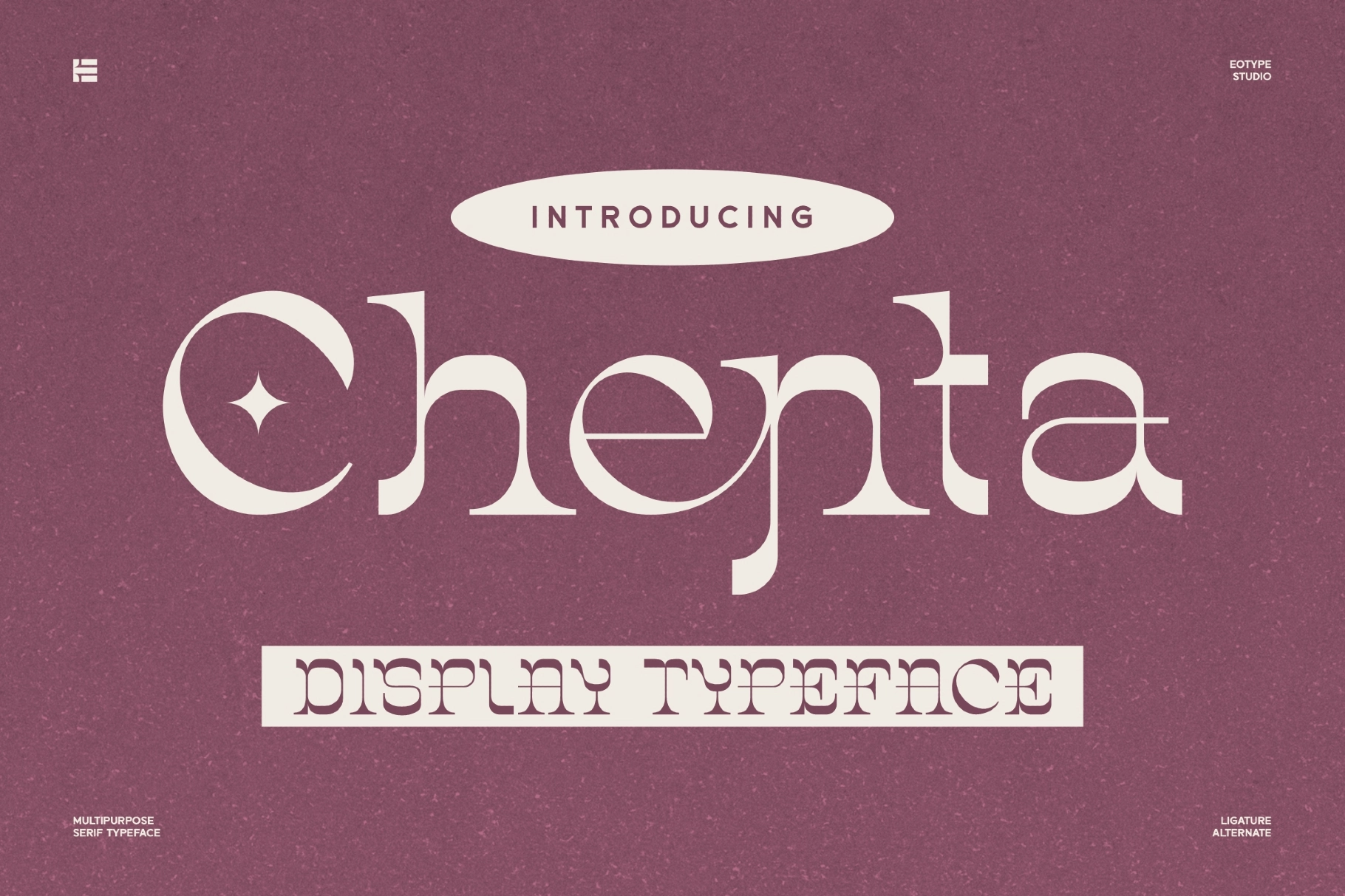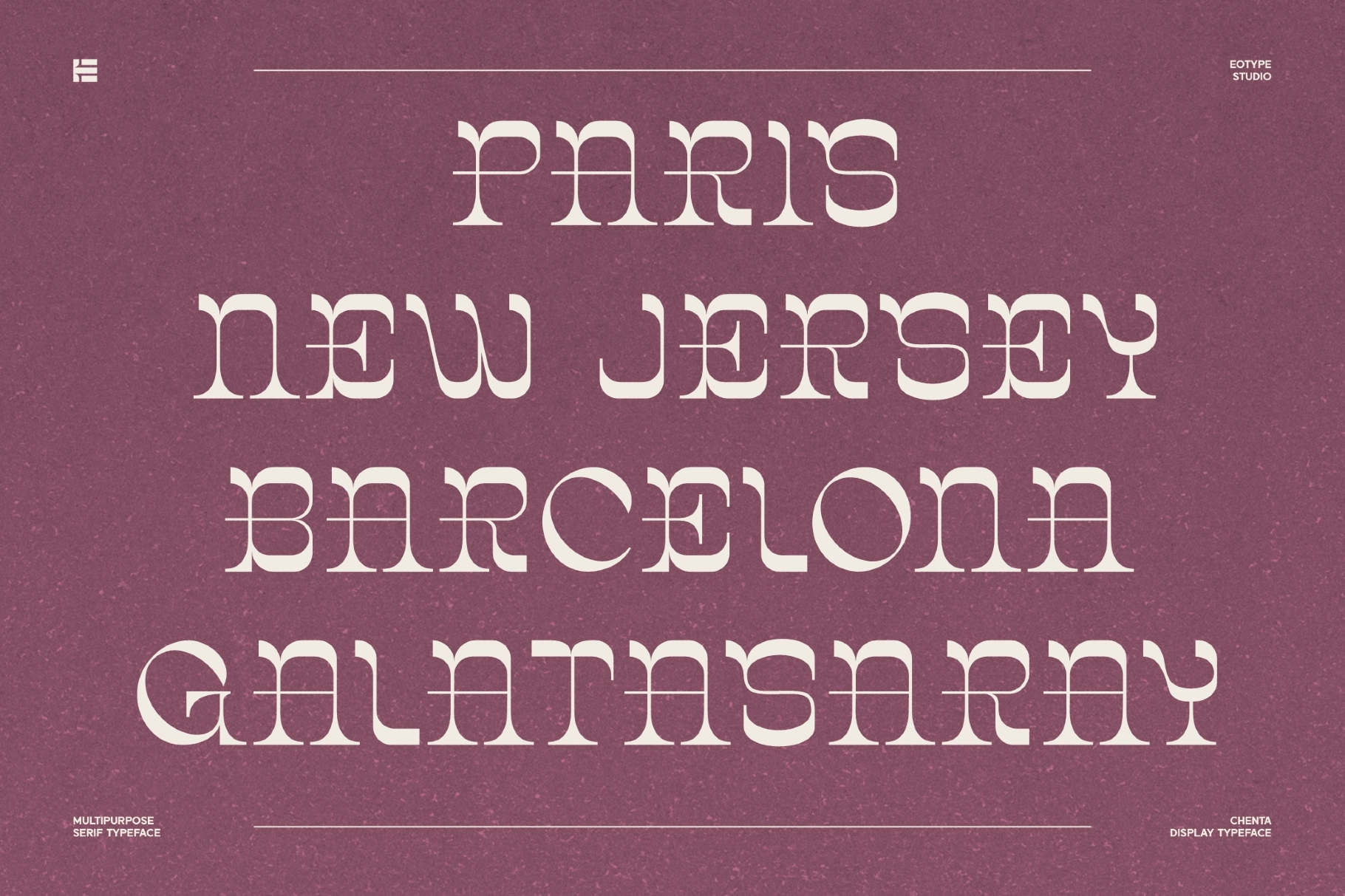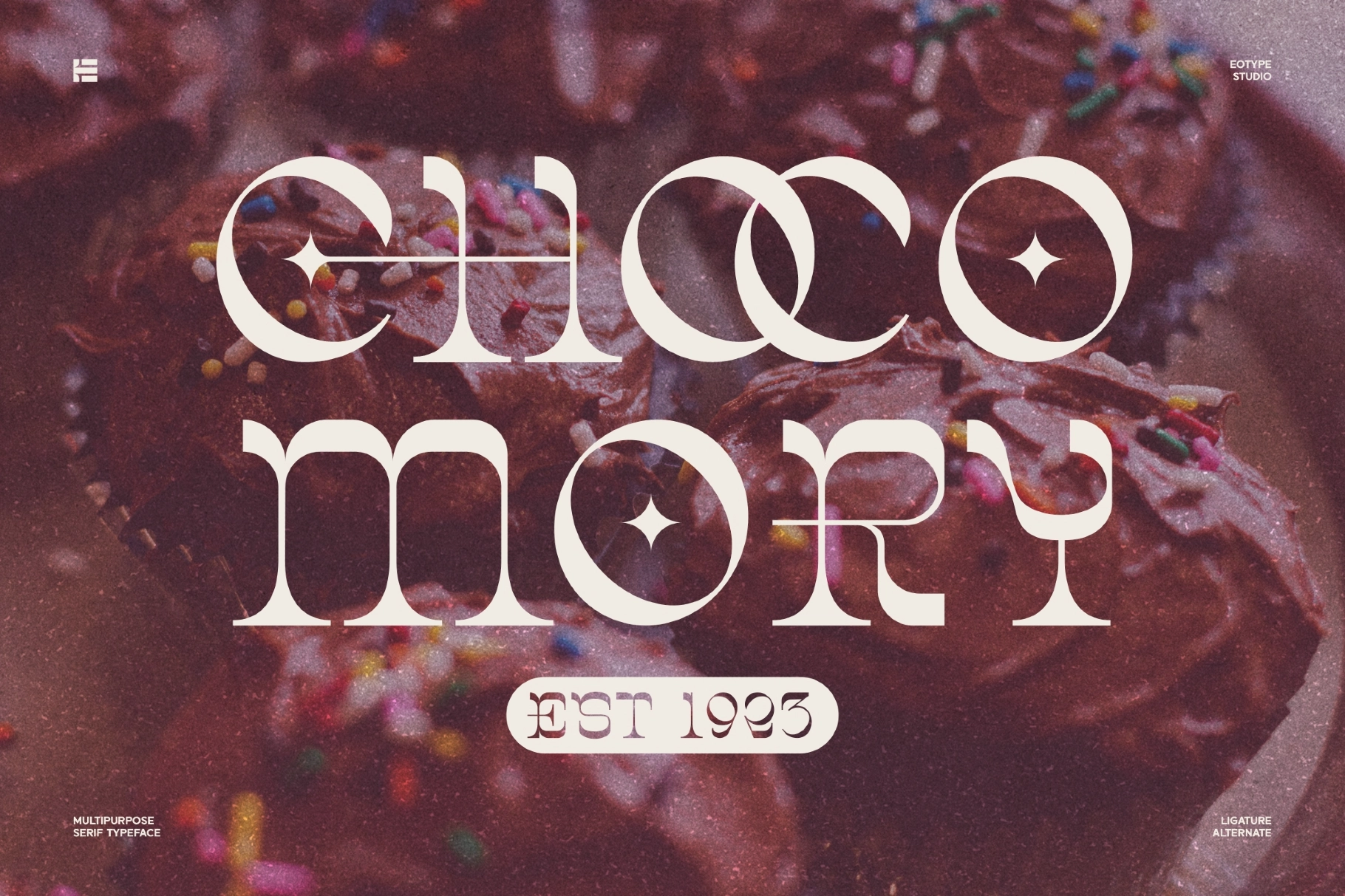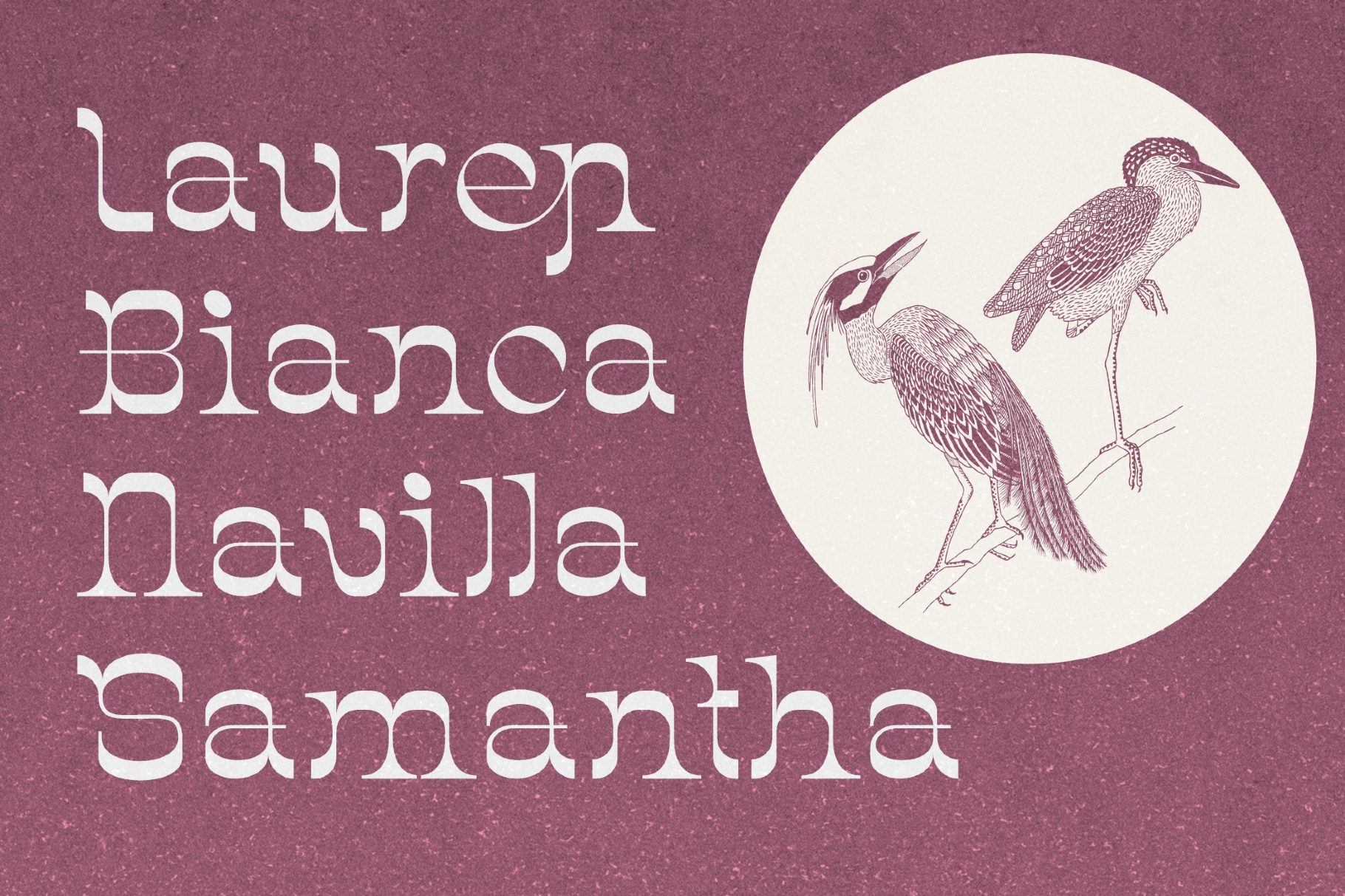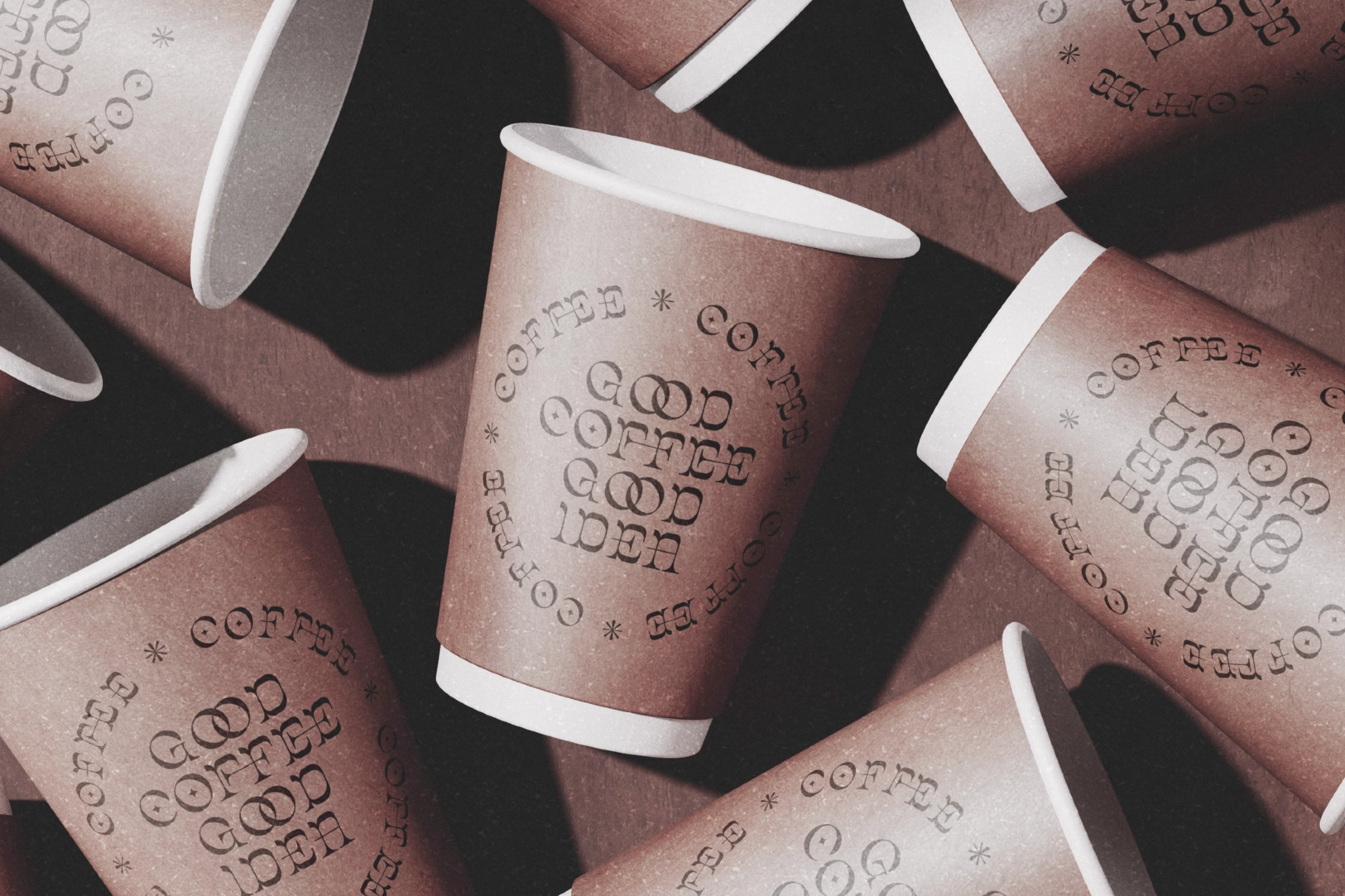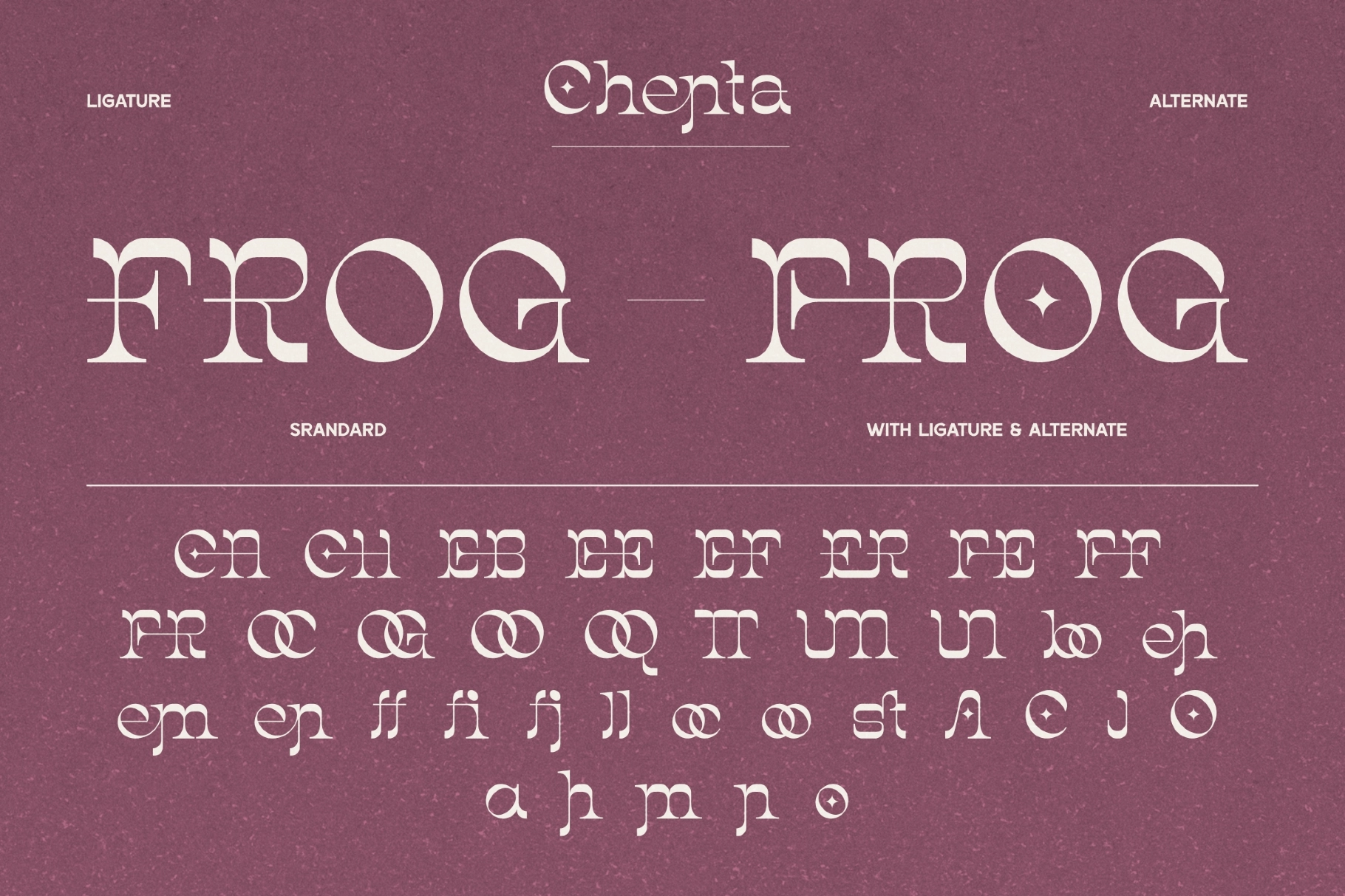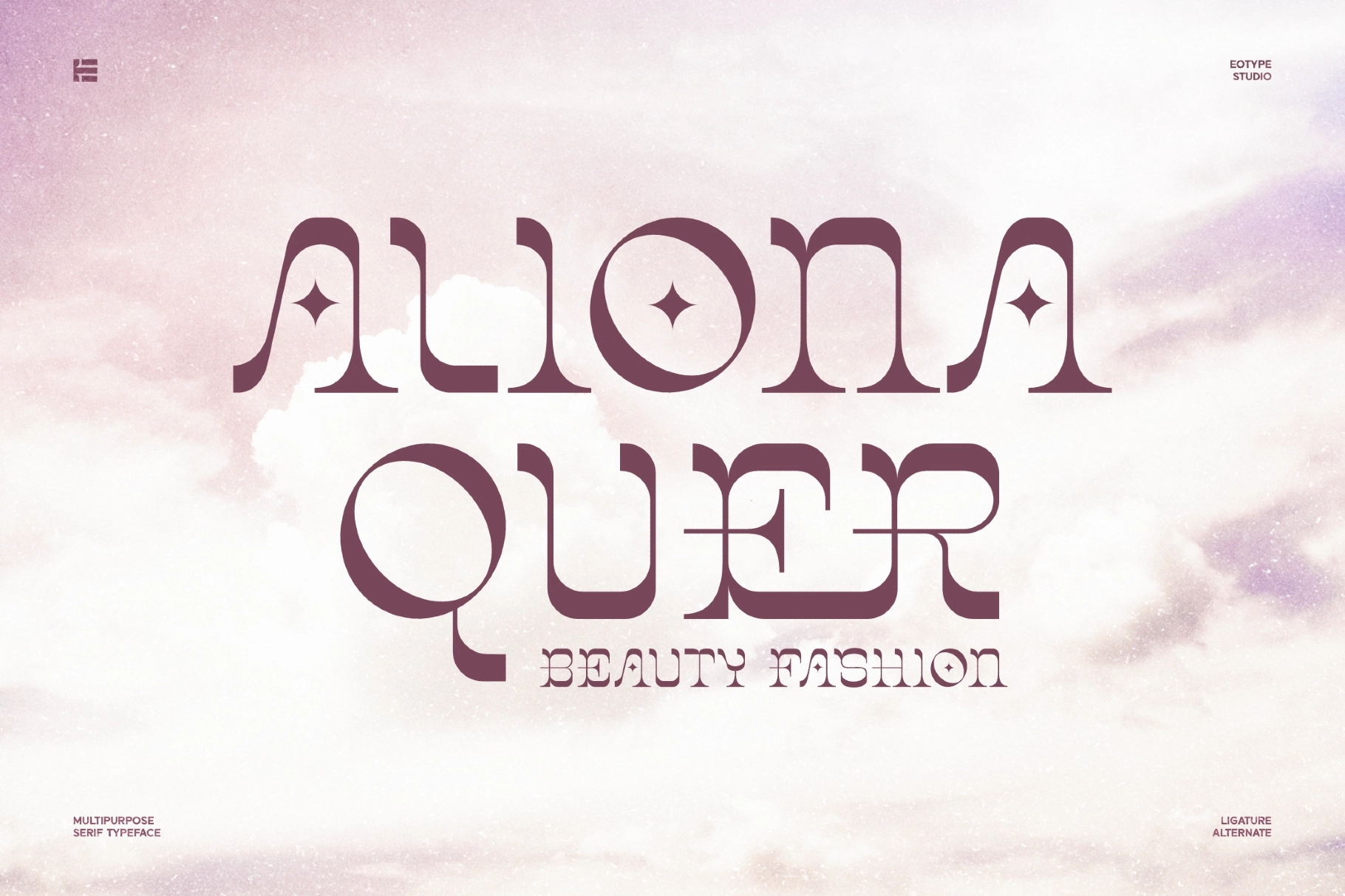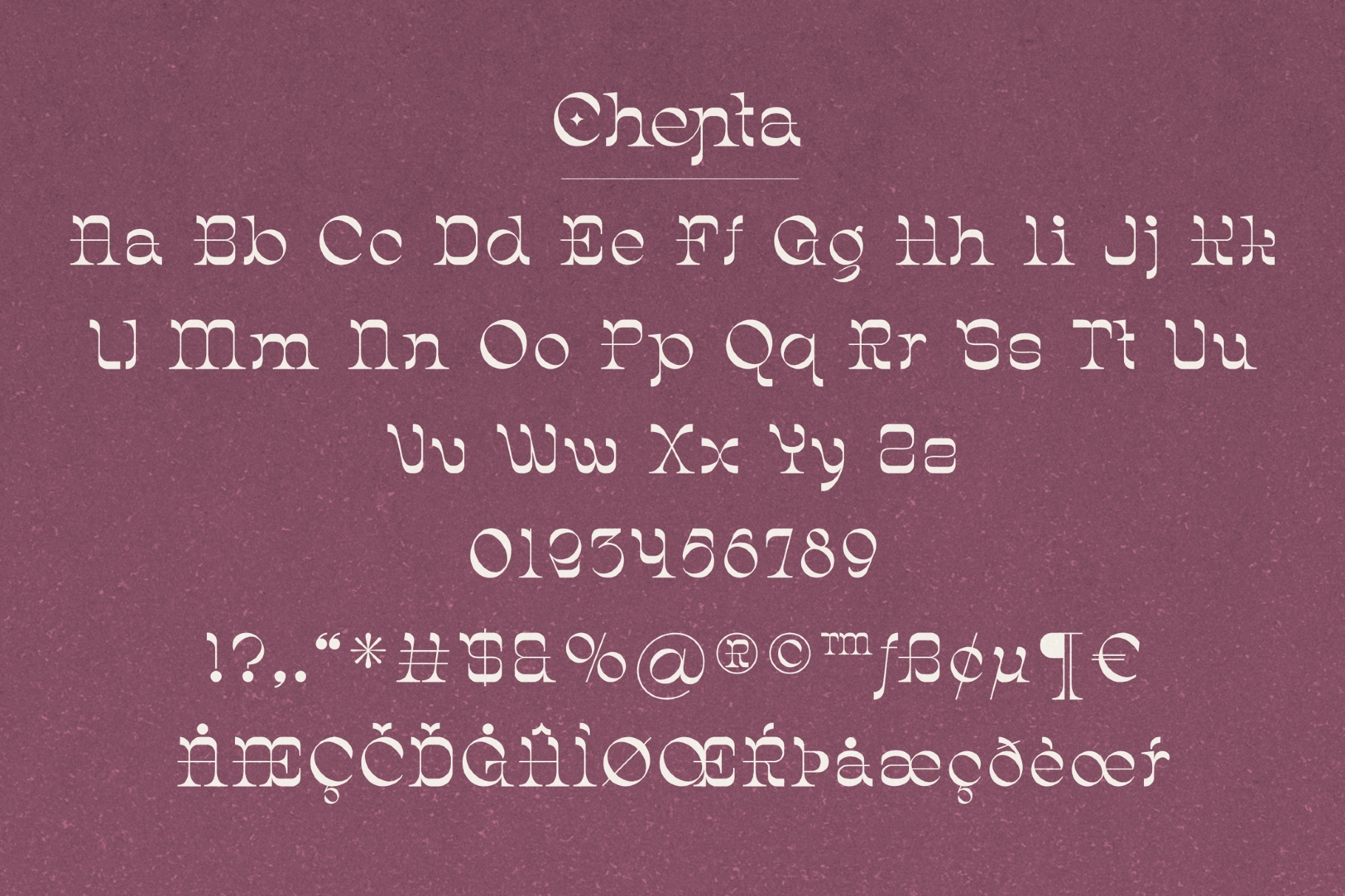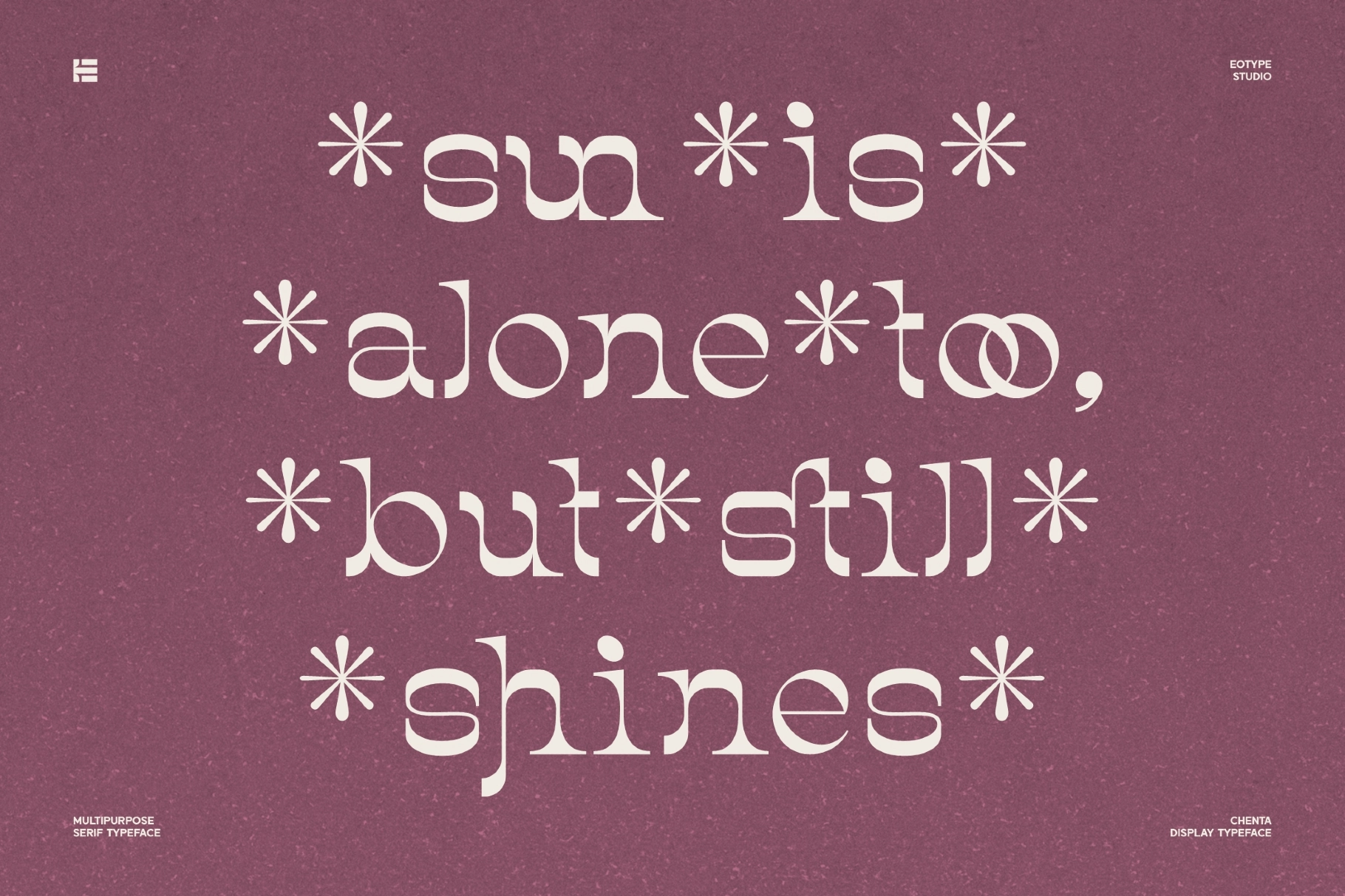
Chenta - Groovy Serif Display Font
Chenta is a wide groovy serif display font with the kind of counter shapes that belonged on 1970s record sleeves and softcover paperback covers — round, generous, and slightly too comfortable to be purely classical. The contrast is high: thick strokes swell into the terminals, which are shaved to soft rounds rather than hard wedges, producing a letterform that reads as both declarative and easygoing. The C is nearly a full circle, the a builds around a closed teardrop, and the ligature alternates — including pairs like FR, OG, oo, st, and star-glyph swaps — add a second layer of personality for short headline settings where every character pair can be composed deliberately.
Chenta works best large and loose. Use it for poster titles, magazine headers, boutique logotypes, album and playlist covers, editorial pull quotes, and packaging for food, beauty, or lifestyle brands where warmth and confidence share equal weight.